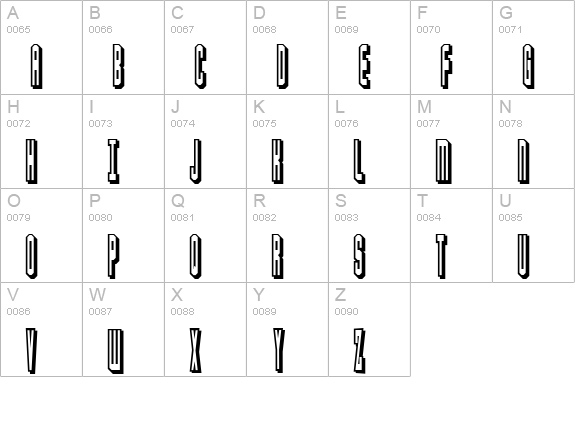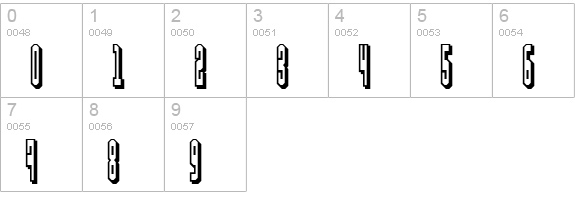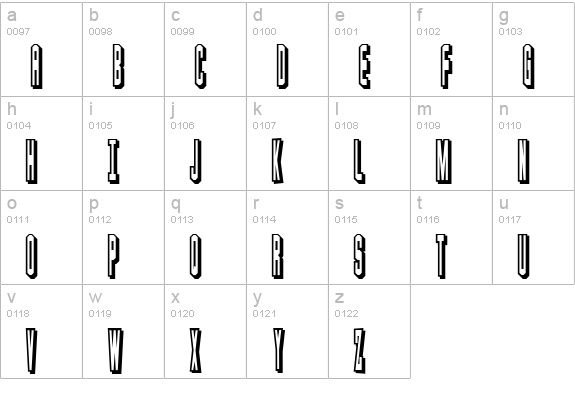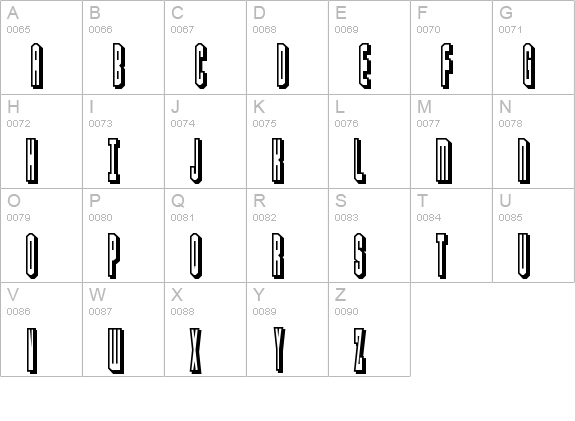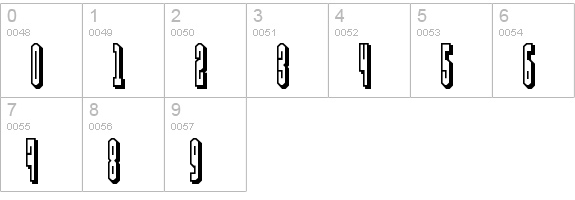
Blaster font is a dynamic and energetic typeface that exudes power and impact. With its bold strokes and sharp edges, this font is perfect for projects that require a strong and attention-grabbing appearance. Whether used for headlines, titles, or creative designs, Blaster font commands attention and leaves a lasting impression. The best part? Blaster font is available for free download at FontsMarket.com. This means you can easily access and use this striking typeface in your projects without any cost. Don't miss out on the opportunity to enhance your designs with the bold and impactful style of Blaster font. Download it today and make a lasting impression with your work.